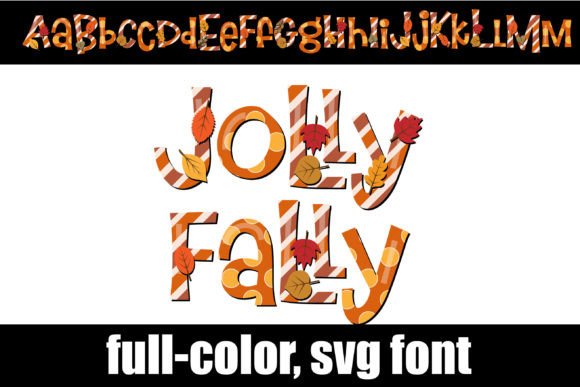
Best Autumn Font for Your Designs: Introducing Jolly Fally!
Embark on a delightful journey through the vibrant hues of autumn with our exclusive Jolly Fally font, a kaleidoscope of colors that will ignite your creativity like never before. Let the playful polka dots and cheerful stripes dance across your designs, capturing the essence of the season's magic. With Jolly Fally, you'll have the power to transform ordinary words into captivating works of art.
Jolly Fally is not just a font; it's an experience. Immerse yourself in the splendor of autumn, where fiery reds, golden yellows, and deep oranges intertwine, creating a visual symphony. Picture your designs adorned with the full-color glory of Jolly Fally, leaving an unforgettable impression on your audience.
But wait, there's more to Jolly Fally than meets the eye. Each letter comes with an alternative color variation, accessible through your system character map. This ingenious feature opens up a world of possibilities, allowing you to mix and match colors, creating unique and captivating effects. The possibilities are endless, bound only by your imagination.
Dive into the world of full-color SVG fonts with Jolly Fally and unleash your creativity. From simple text logos to complex illustrations, Jolly Fally is your ultimate companion, transforming your designs into masterpieces.